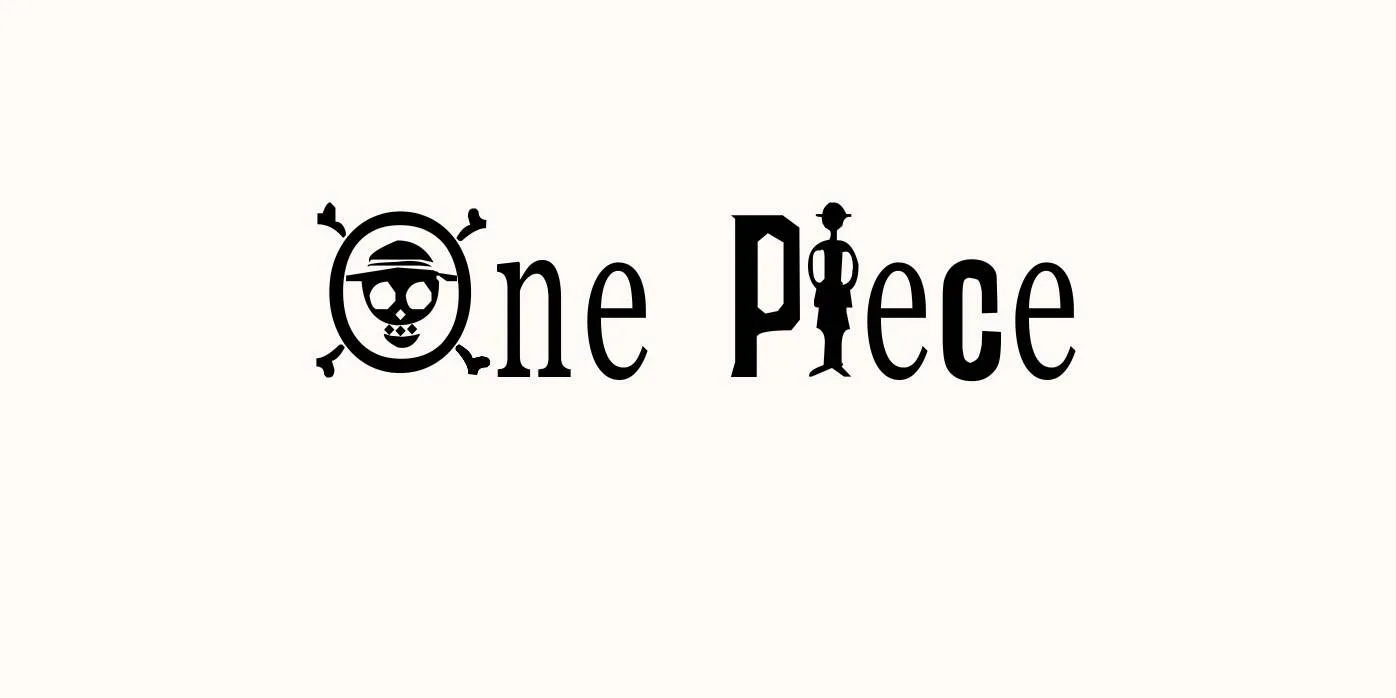
One Piece Logo Font
Today, we are going to present the dingbat type of font. One Piece Logo Font is an amazing typeface that will meet all the needs of your design and project. This amazing type of font is designed by Phantom King Graphics. You can get this typeface in both OTF and TTF font formats.